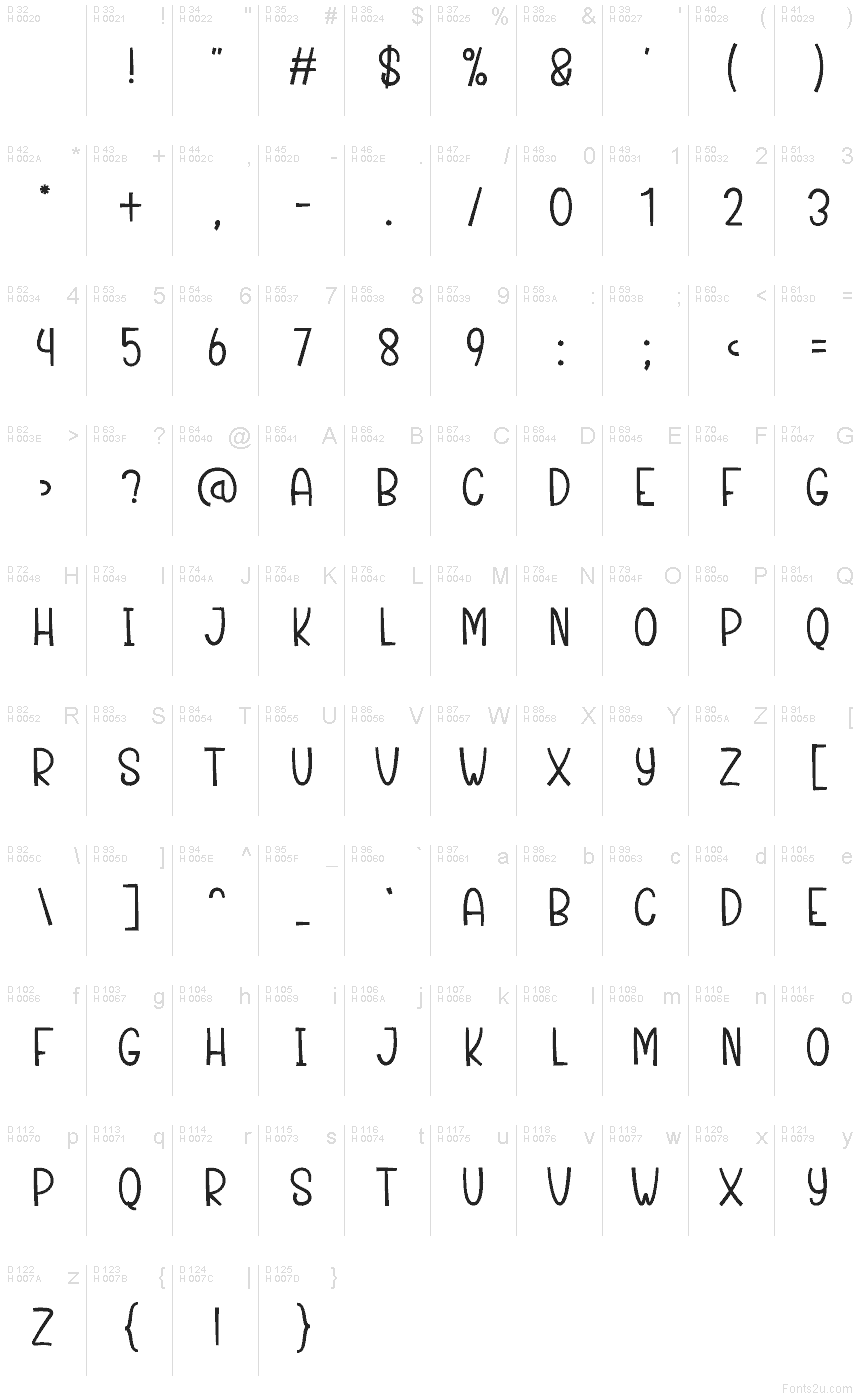
Surprise Birthday
Surprise Birthday font by Andi Moz is a casual display typeface with handwritten style letters and a casual aesthetic. This quirky and elegant display features an organic flow between each of its characters which makes it visually attractive and suitable for various design projects.